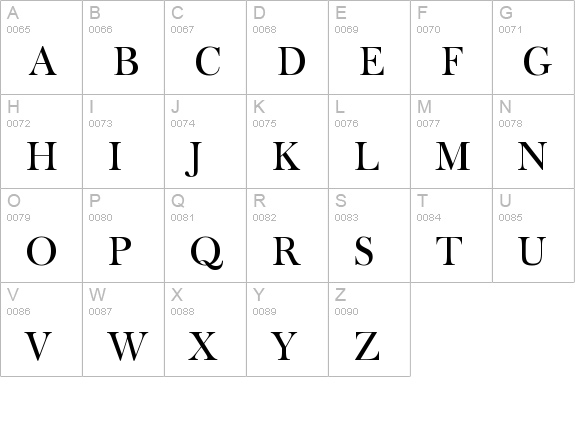
Fry's Baskerville BT Font Details
Fry's Baskerville BT is a classic serif font with a timeless elegance and sophistication. Its refined letterforms exude a sense of tradition and professionalism, making it a perfect choice for a wide range of design projects. The crisp serifs and balanced proportions of Fry's Baskerville BT lend a sense of reliability and trustworthiness to any text it graces. What sets Fry's Baskerville BT apart is that it is not only a premium font, but it is also available for free download at FontsMarket.com. This means that you can easily access this high-quality typeface without any cost, making it an invaluable resource for designers, typographers, and creatives looking to elevate their work with a touch of classic sophistication. With Fry's Baskerville BT, you can bring a sense of refinement and professionalism to your projects, whether you're working on print materials, digital designs, branding, or any other creative endeavor. Download this exquisite font today and experience the timeless beauty and versatility of Fry's Baskerville BT for yourself.